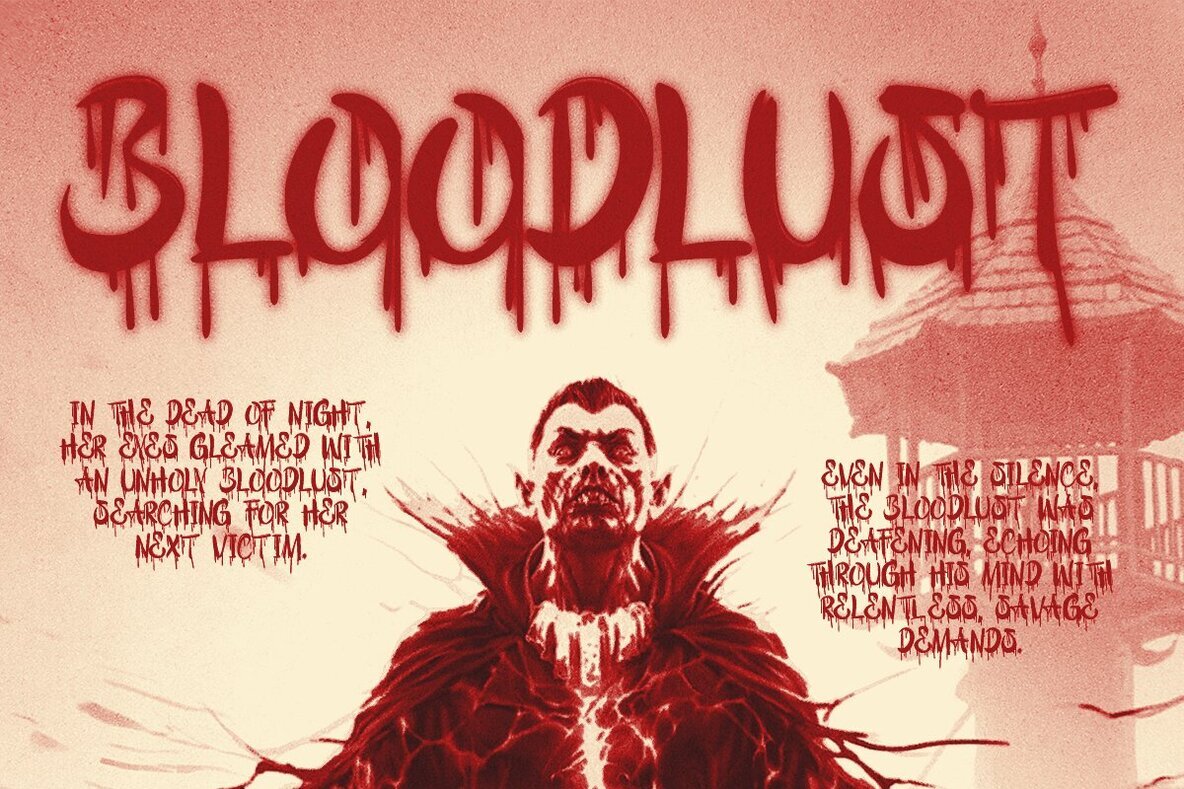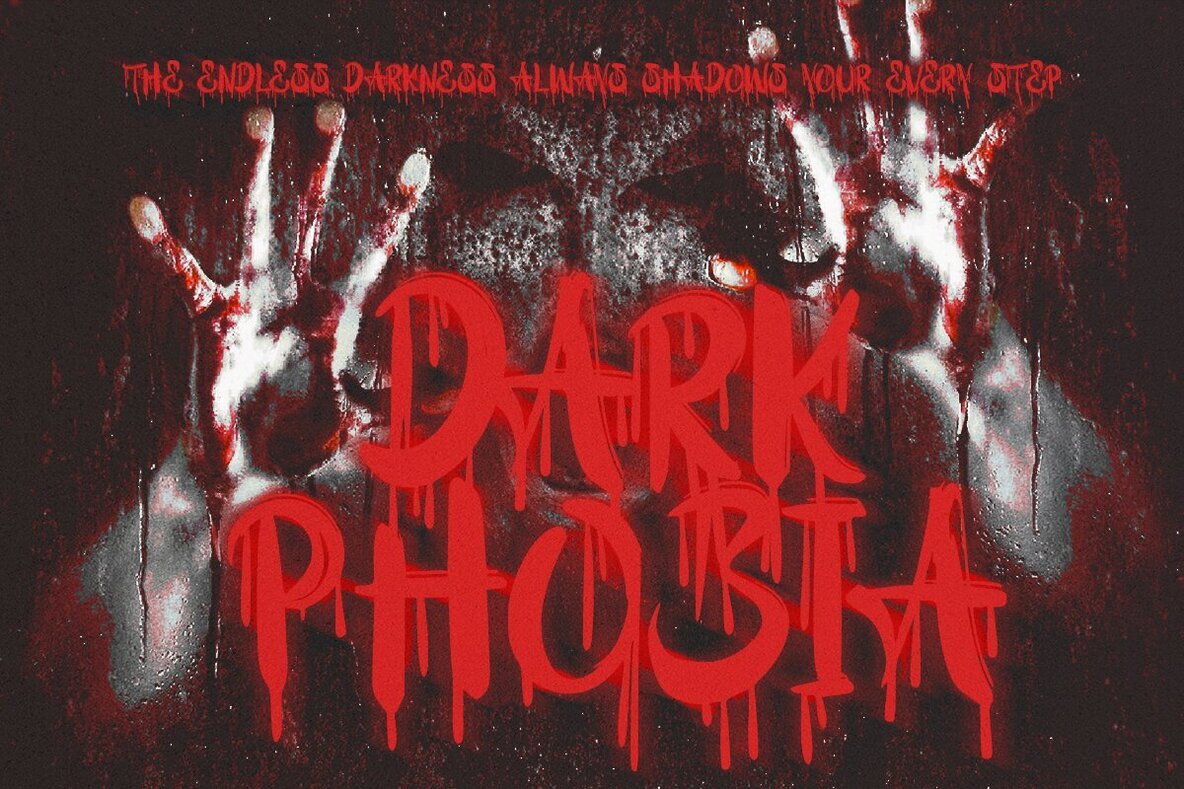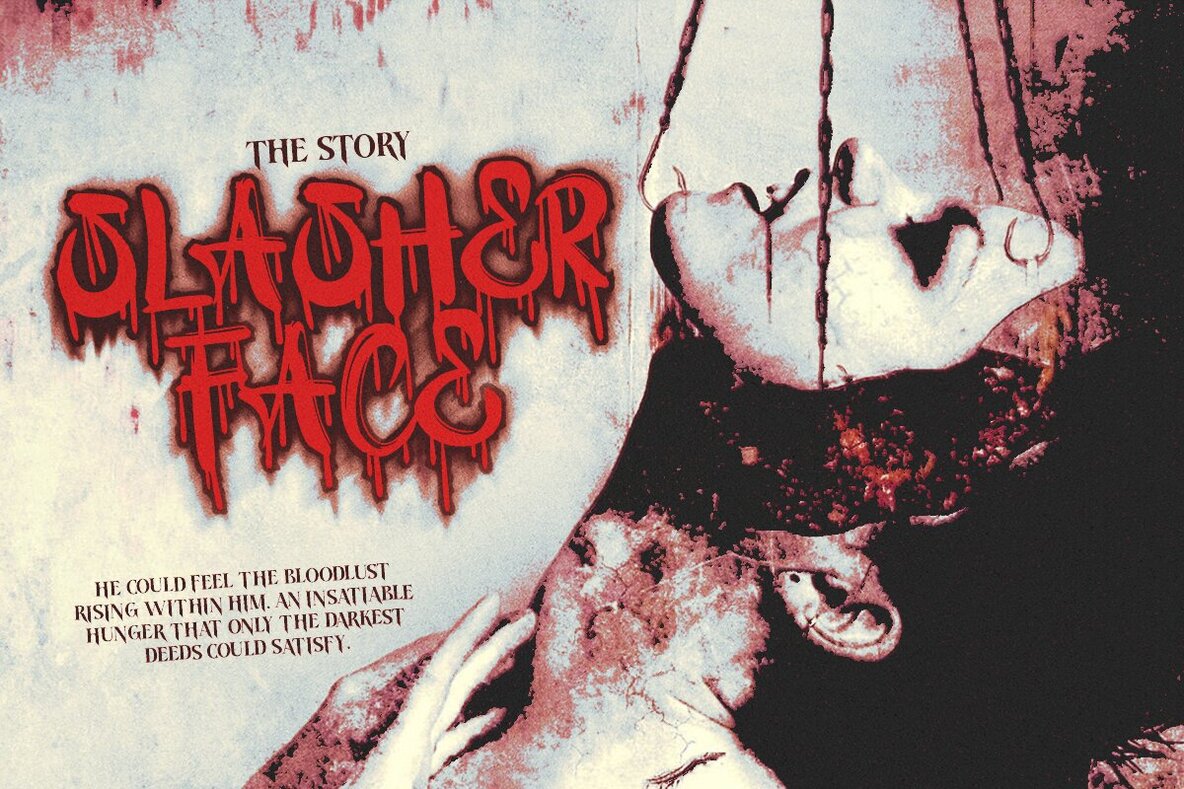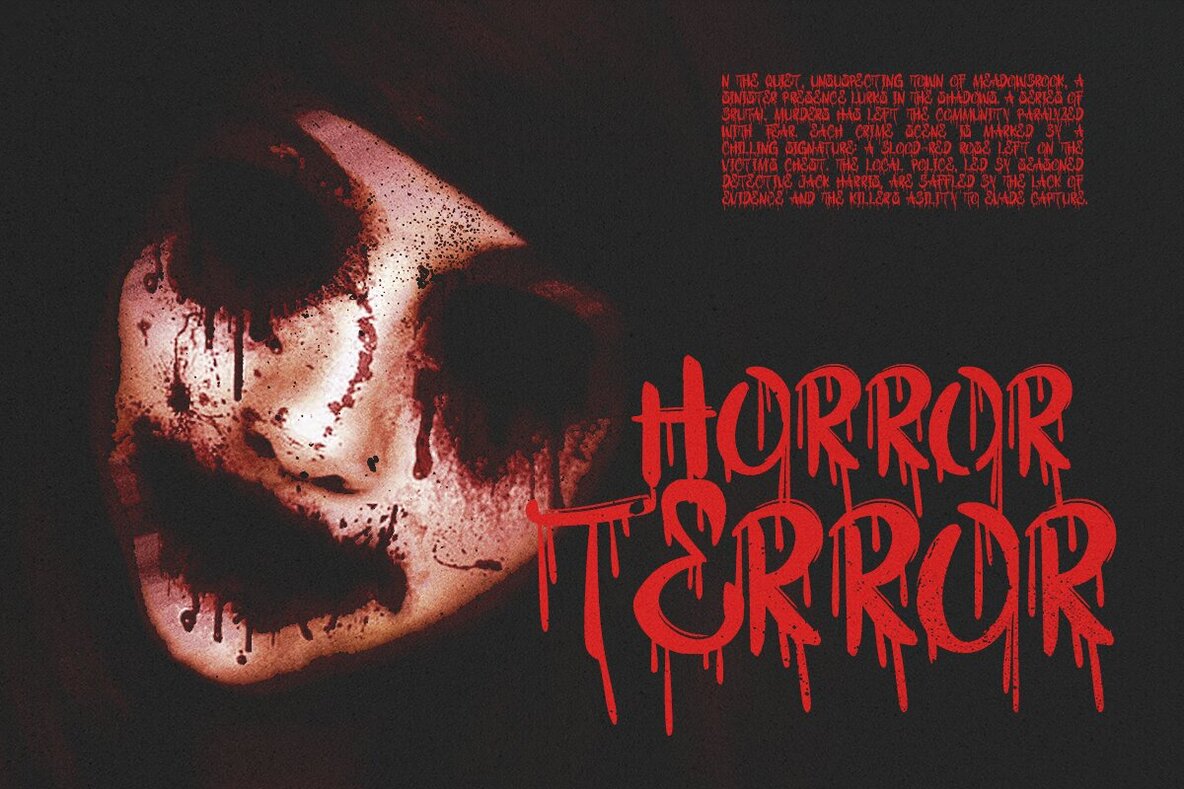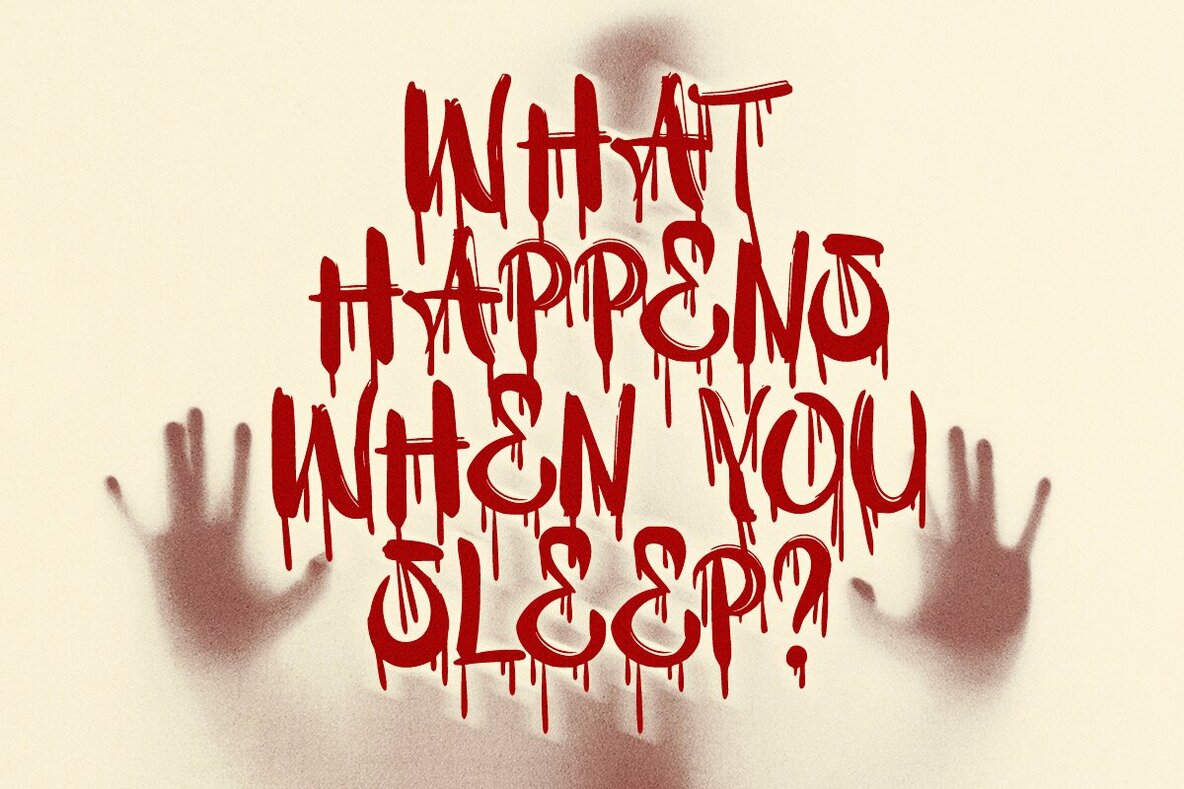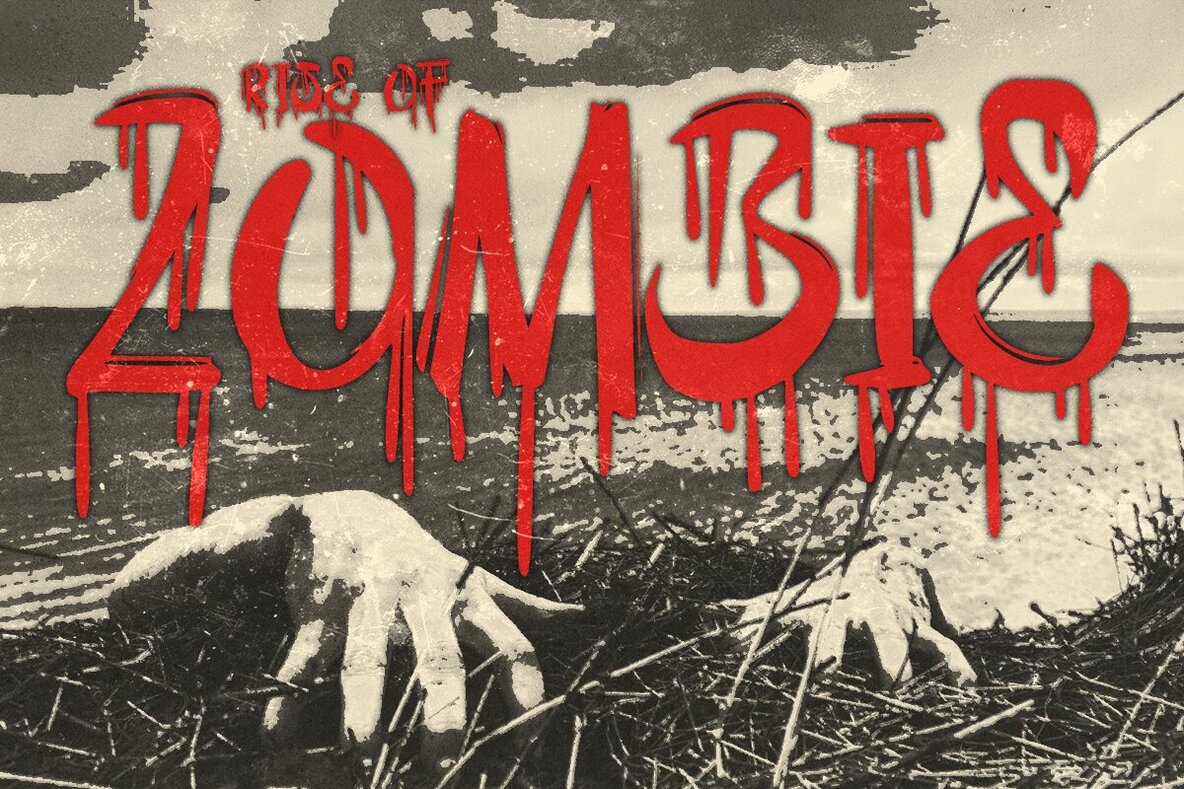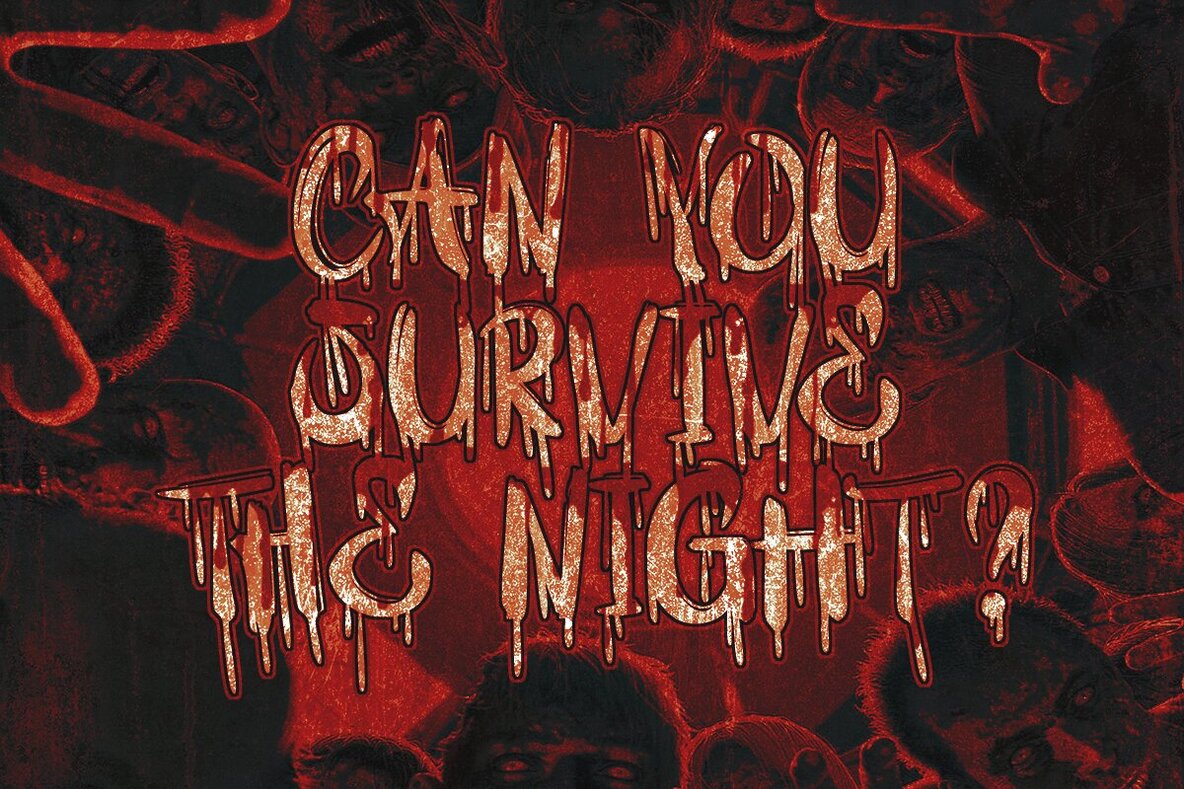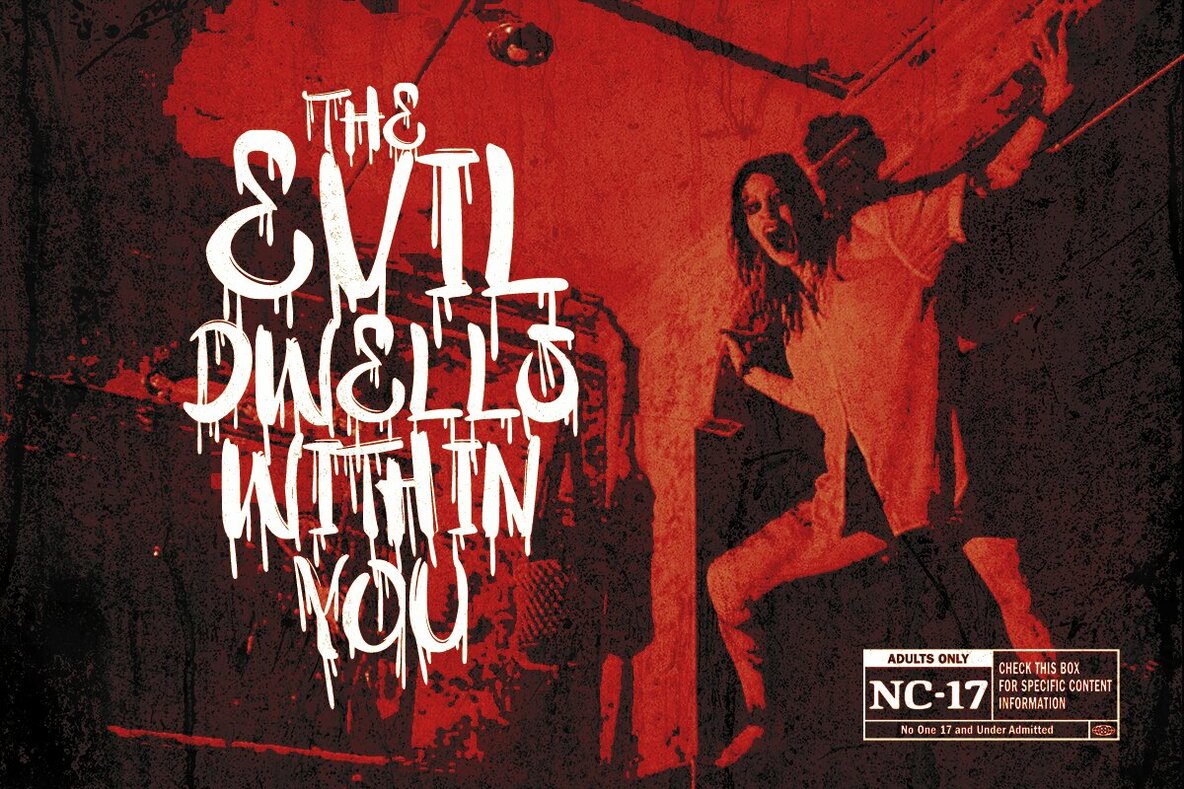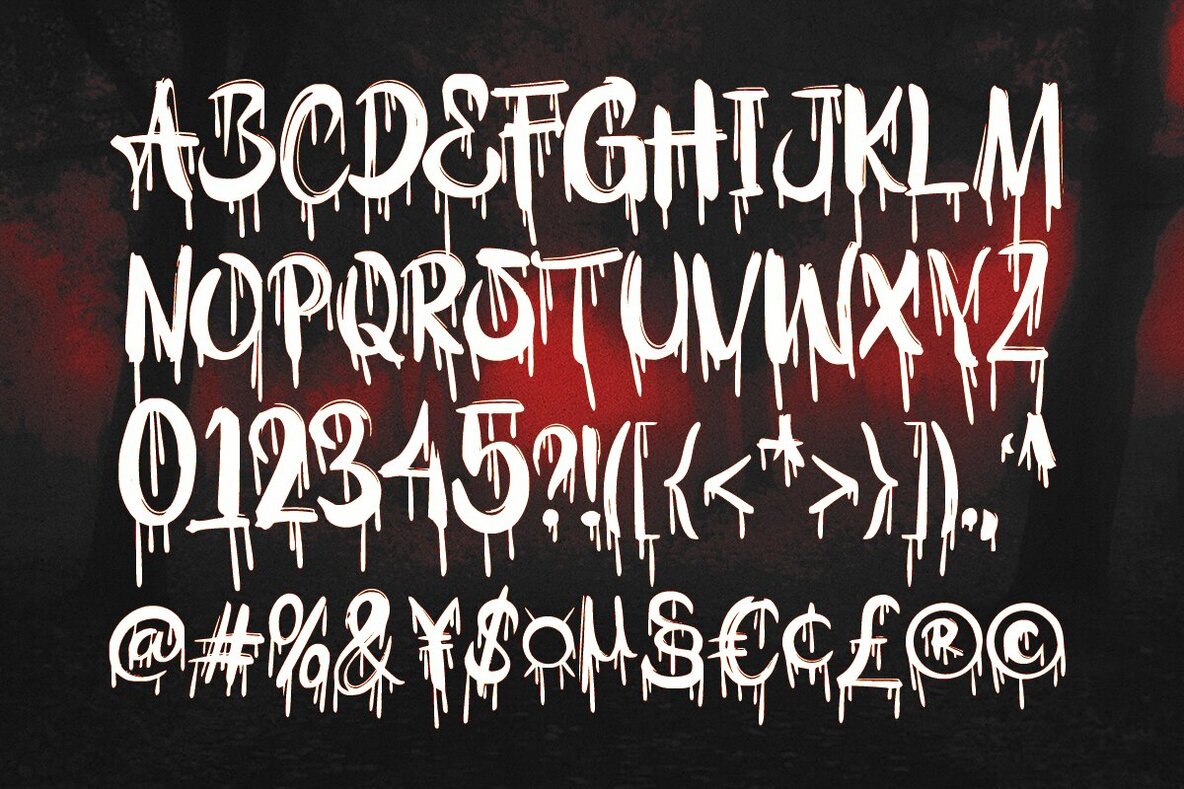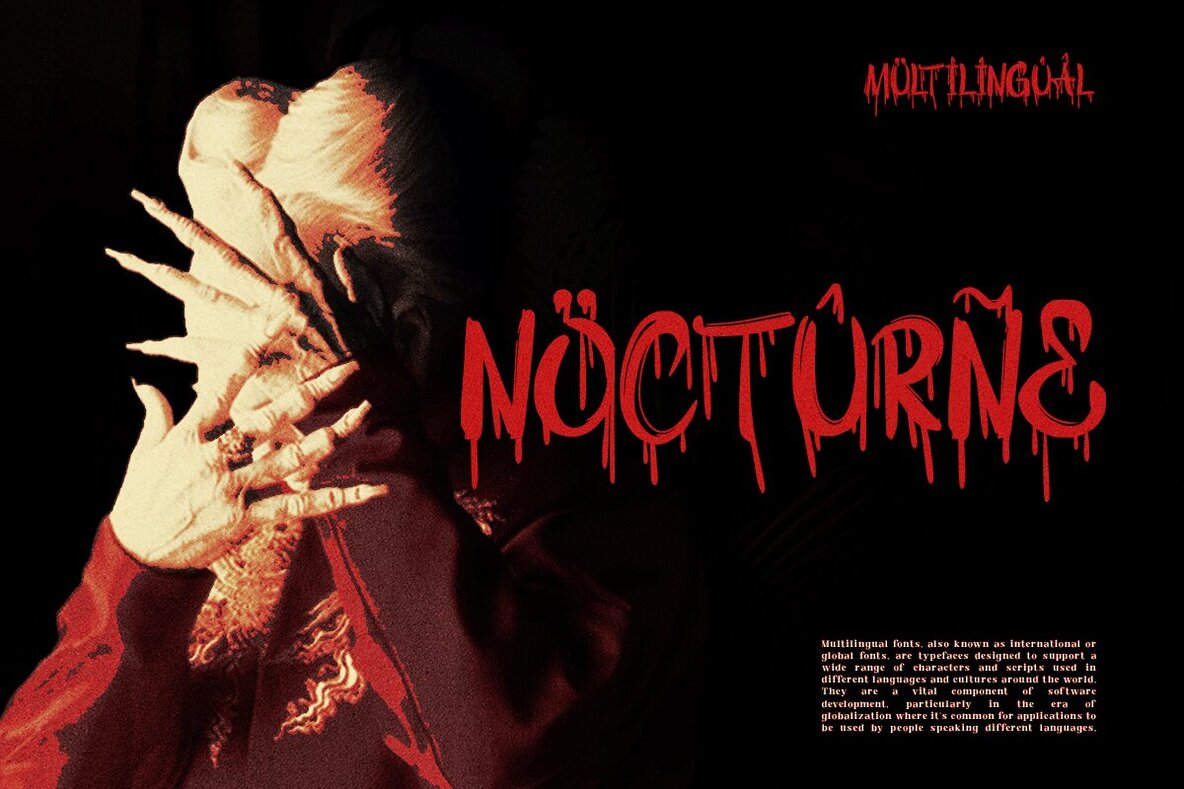
Bloody Shout is a horror display font perfect for Halloween-themed designs. It combines modern readability with a wickedly fun, dripping effect, ideal for spine-chilling posters, eerie invitations, and spooky social media graphics. This font brings a touch of mystery and playful terror, making it a great choice for any project requiring a dark, festive atmosphere.